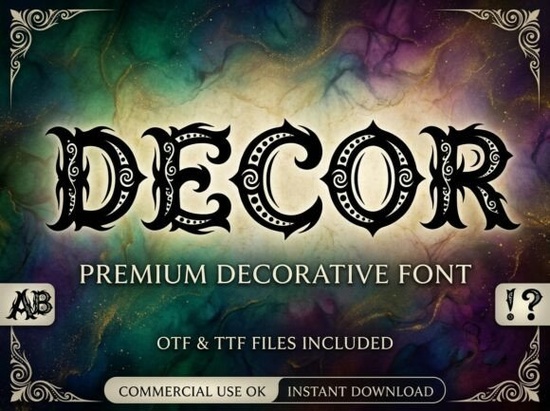
If you are looking for a typeface that commands attention without sacrificing intricate detail, you need a font designed to carry weight on its own strokes. Decor Font fits this role perfectly, especially for projects requiring a sense of history and gravitas. Designed with Gothic Blackletter calligraphy in mind, this heavy-weight capital typeface frames complex interior details with dramatic outer barbs. Whether you are designing merchandise for a band, creating packaging for a spirits brand, or crafting digital assets for readers who love dark aesthetics, this font provides the visual foundation needed for serious storytelling.
What design characteristics define this typeface?
The visual structure relies on a dual-layered letter envelope, which gives the characters depth rather than appearing flat. This framing creates a space for hand-carved filigree scrolls and symmetrical dot arrays, turning simple headlines into works of fine historic art. It draws deep structural inspiration from medieval majesty and traditional iron-forged ornaments. Because the shapes are so distinct, readability drops when used for body text, making it ideal strictly for display purposes like book covers, logos, and large-scale prints.
While some modern serifs offer clean lines, this style offers a rugged texture that mimics aged stone or forged metal. You will find the sharpest angles resembling dynamic, fiery spikes, which works exceptionally well for genres focused on intensity or mystery. If your current project feels too soft or lacks edge, shifting to a heavier decorative option might solve the aesthetic mismatch immediately.
How does it compare to other decorative collections?
Different projects require different atmospheric tones, and selecting the right companion font matters. For example, if you are working on a mystical theme but want a softer approach, looking at resources featuring shadow imagery might help balance the harsher edges found here. Alternatively, when dealing with luxury liquor labels that require an upscale yet classic appearance, examining options similar to Darby ensures you have access to refined elegance before committing to a bolder choice.
However, if your focus shifts toward organic themes, this heavy, industrial font might clash with delicate patterns. In those cases, exploring collections with leaf motifs can provide a natural counterpoint. Similarly, while the original design serves alternative streetwear clothing labels and vintage tattoo parlor signs beautifully, checking out styles suited for bohemian ink concepts offers variety if your client prefers a looser interpretation of tattoo art over traditional lettering.
Which applications benefit most from this layout?
High-contrast letters perform best in scenarios where distance viewing is unavoidable. This includes physical signage for heavy metal merchandise headings or poster displays for events. The legibility remains high even at smaller scales, though the intricate details inside the strokes may vanish without sufficient resolution. It operates as an unmatched choice for dark academia book titles, allowing authors to signal genre specificity instantly.
- Test Readability: Always run a proof of the full headline at actual size to ensure internal filigree doesn't blur.
- Pairing Strategy: Pair with a clean sans-serif body text to maintain hierarchy and prevent visual clutter.